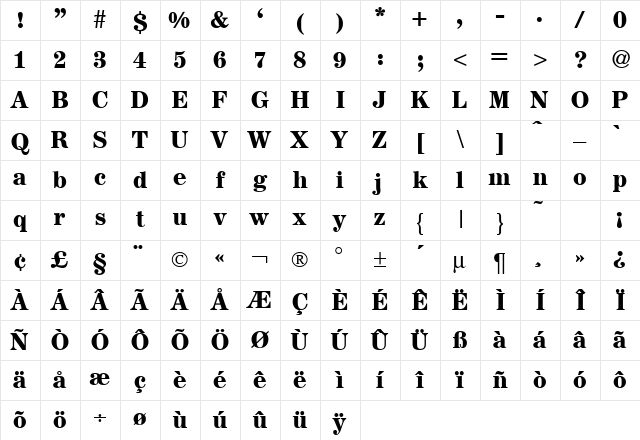
AugustMediumDB Bold
Design Context for AugustMediumDB
AugustMediumDB is a composed and adaptable typeface that performs quietly and consistently across a wide range of design contexts. Its bold stroke weight gives it real presence on the page.